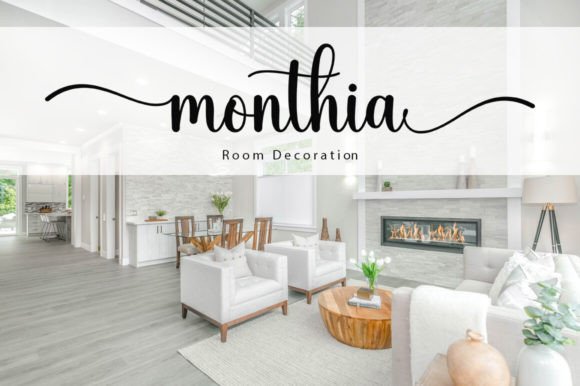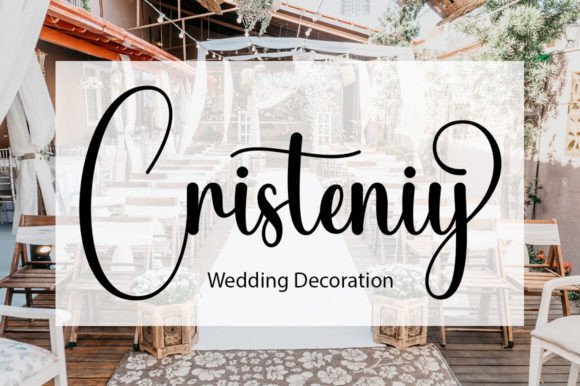
Bintang Font
Bintang is an enchanting handwritten font. This versatile script font has a wide spectrum of applications ranging from greeting cards to headlines and is guaranteed to add a romantic feel to your next project. This font is PUA encoded which means you can access all of the amazing glyphs and ligatures with ease!